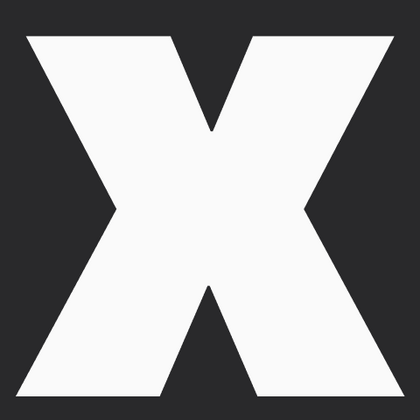
Fat Fonts
When grabbing immediate attention is the goal, fat fonts are an essential tool. Their bold weight and carefully balanced spacing make them ideal for large-format designs. The TypeType catalog features typefaces with strong contours and adaptable decorative variations—from aggressive geometric styles that demand notice to softer, rounded alternatives that bring a friendly touch.
TT Severs is a geometric sans serif with emphasized elements of internal brackets. The main visual feature of TT Severs is the unusual form of internal ovals.
TT Bakers is a fluid serif with a gentle and lively character. This font is like freshly baked goods: it`s warm and soft, especially in its bolder weights.
TT Drugs is a typeface that doesn`t feature serifs but stands out for its high contrast.
TT Biersal is a display sans serif with a free-spirited, playful, and adventurous nature. The concept of this font was sparked by a German poster from the early 1930s.
TT Cometus is an expressive typeface that captivates from the first time.
TT Octosquares is a fresh, revised, expanded, and significantly improved version of our first commercial font TT Squares & its narrow version.
TT Travels Text is a geometric grotesque with wide proportions and specific shapes of circles and fillets, which includes two stylistic sets with completely different natures.
TT Ricks is a flamboyant elzevir-type serif, for which the words “cute” or “calm” are not a fitting definition.
TT Rounds Neue soft, friendly, rounded sans serif fontfamily
TT Marxiana Elzevir is a title or header font and is a compilation of monastic Elzevir that were actively used in the Niva magazine for all its prints.
TT Backwards Sans is a narrow grotesque, which takes us back to the book design of late 70s and early 80s with its ductile characters.
TT Hazelnuts is a display sans serif font family containing a set of elegant and delicate decorative elements.
TT Slabs. Slab serif, also called «square serif». They originate shortly after the Industrial Revolution (1850), when the advertising industry began to grow.